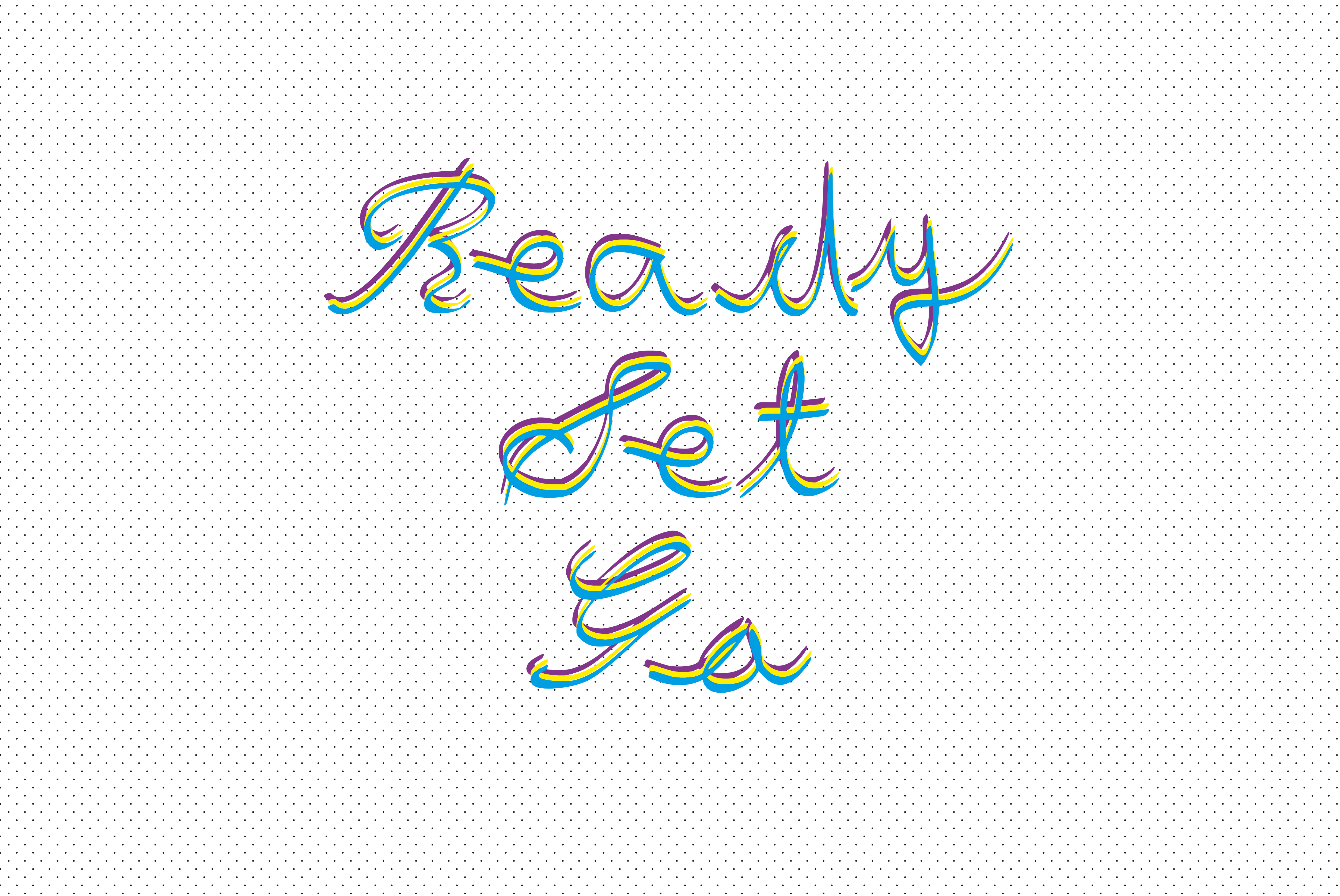
Introduction to Join Me Font
Have you ever sat down with a pencil and paper, pouring your thoughts and ideas onto the page in a messy yet beautiful script? For me, that moment is where the magic happens – a spark of creativity ignites, and I’m transported to a world of possibilities. That’s where the Join Me Font comes in, capturing the essence of my handwritten style and infusing it into your designs.
As a designer, you’re constantly on the lookout for that special something to elevate your creative project. Whether it’s a blog post, social media graphic, or marketing campaign, the Join Me Font offers a unique touch that’s both authentic and eye-catching. With its high-quality, free download, and transparent background, this design resource is a valuable addition to any designer’s toolkit.
So, join me in embracing the relaxed charm of the Join Me Font, and discover how it can breathe new life into your designs.
Key Features of Join Me Font
- Unique, modern font with a transparent background, ideal for digital designs
- Includes 1,000+ glyphs, with a character set covering Latin, Cyrillic, and Greek alphabets
- Supports a wide range of languages, making it a versatile choice for multilingual projects
- Perfect for digital designs, including logos, icons, graphics, and typography for web and print projects
Honest Review: Join Me Font
I recently came across the Join Me Font and I have to say, it’s been a game-changer for my design projects. This free download has been a huge asset for my creative work.
- What works well: ✨ The Join Me Font is incredibly versatile, making it perfect for a wide range of design projects. Its modern and sleek design gives it a high-quality feel that’s hard to find in free fonts.
- What works well: ✨ The font also has a transparent background, which makes it easy to use in various design applications, from digital to print media.
However, I did encounter some limitations. ⚠️ The font doesn’t come with as many styles as some other high-quality design resources, which can be a drawback for designers who need a wide range of options.
Overall, I’m really impressed with the Join Me Font. It’s a fantastic design resource that’s perfect for designers on a budget. Its high-quality design and versatility make it a great addition to any creative project. I’d definitely recommend it to fellow designers looking for a reliable and easy-to-use font.
Designing with Join Me Font
Tips for Getting the Most Out of Join Me Font
Experiment with different font sizes and styles to create visual interest. Use the Join Me Font in combination with other design elements, such as images or graphics, to create a cohesive look. Don’t be afraid to push the boundaries and try new things – the Join Me Font is a versatile design resource that can help you achieve your creative vision.
Common Use Cases for Join Me Font
The Join Me Font is perfect for a variety of creative projects, including branding, marketing materials, and website design. It’s also great for adding a touch of elegance to presentations, documents, and social media graphics. With its high-quality design and transparent background, the Join Me Font is a
Is the Join Me Font suitable for use in print materials?
Yes, the Join Me Font is suitable for use in print materials, including business cards, brochures, and other marketing materials. The font’s high-quality design ensures that it will print clearly and consistently, making it an excellent choice for designers working on print projects.